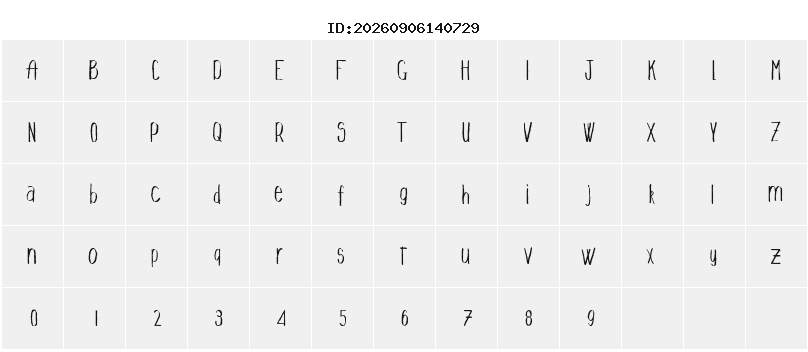
Tall Drink Preview
• Font Name: Tall Drink
• Full Font Name: Tall Drink
• Version: Version 1.00 November 24, 2008, initial release
About Tall Drink.ttf
Tall Drink.ttf is a modern, elegant sans-serif font designed for ultimate readability and visual harmony. Perfect for branding, headlines, web design, and print materials.